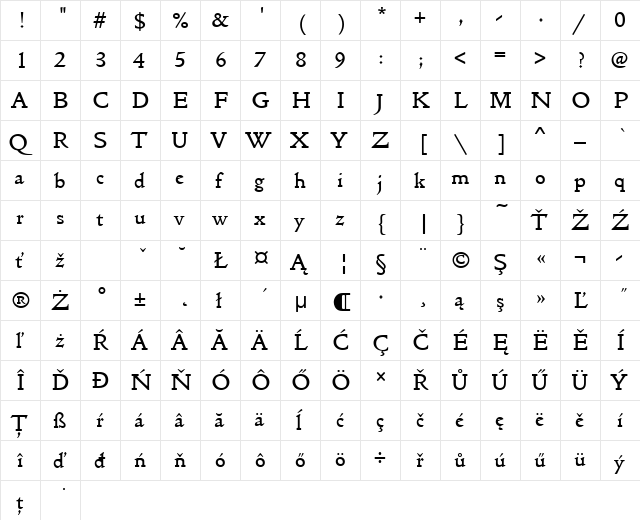
GoldenTypItcTEE Regular
GoldenTypItcTEE offers clean, dependable letterforms without strong stylistic allegiance, making it a practical choice for designers who need flexibility.